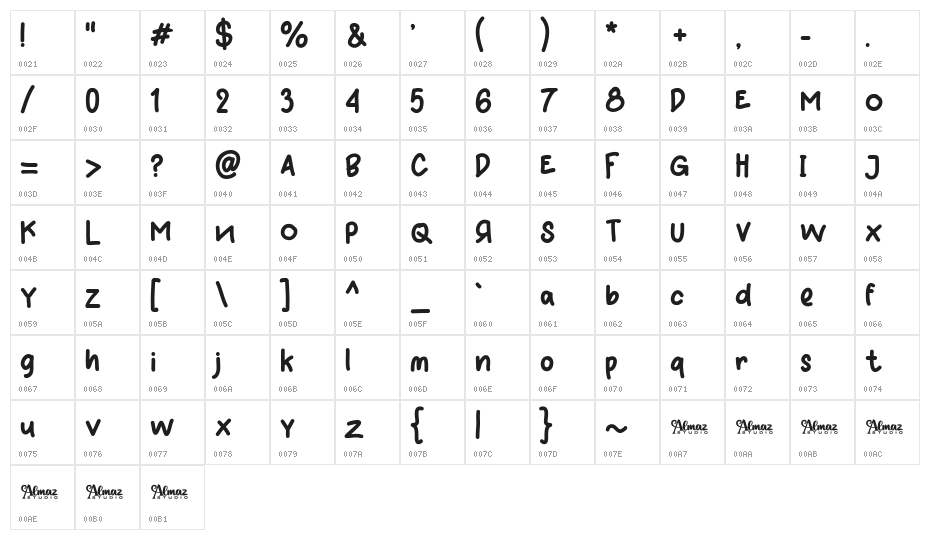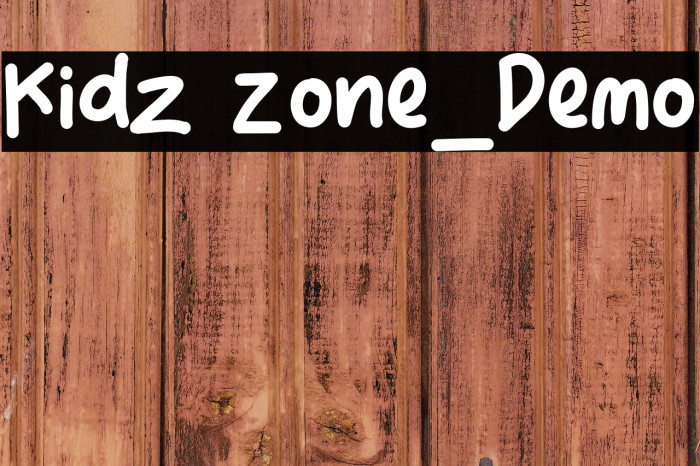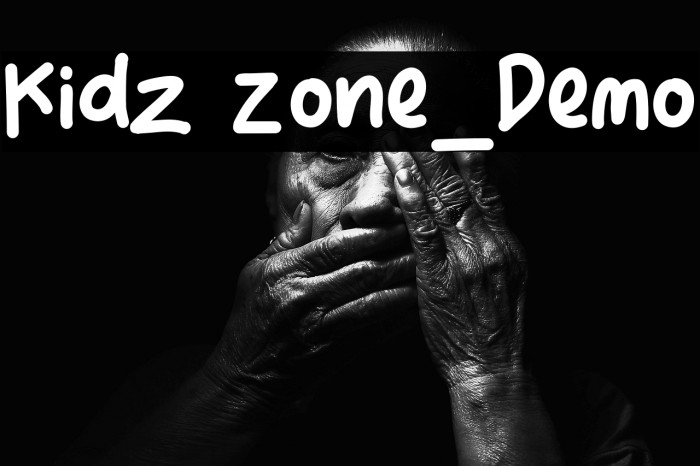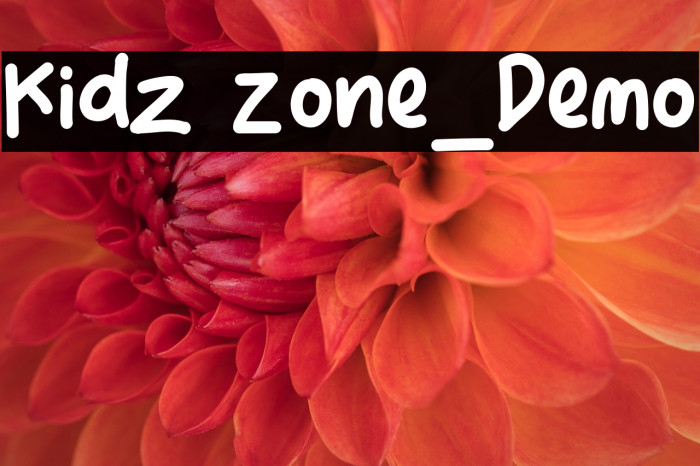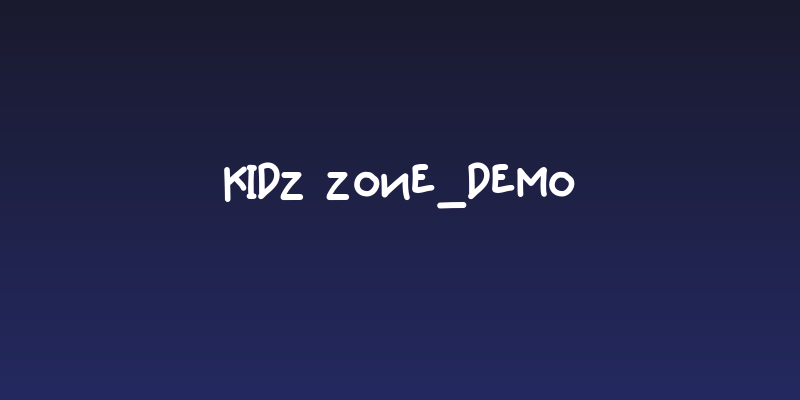
Kidz Zone_Demo Font
Kidz Zone_Demo Description
A playful, handwritten font with rounded edges and a casual style, suitable for children's materials.
| Proposed Projects | Children's books, educational materials, playful branding. |